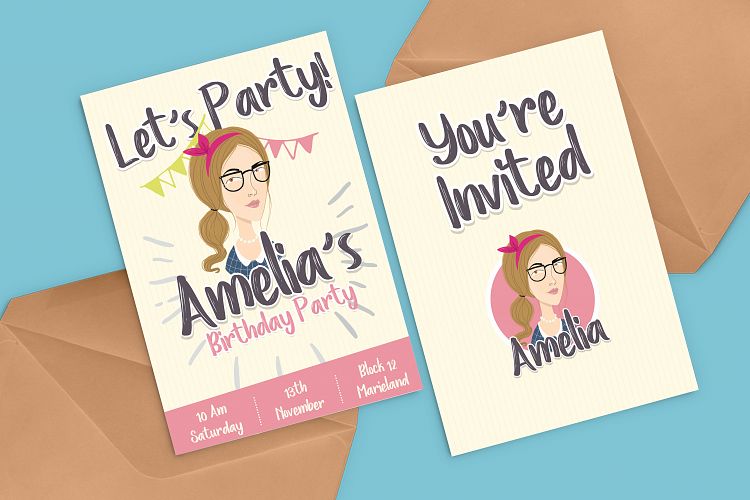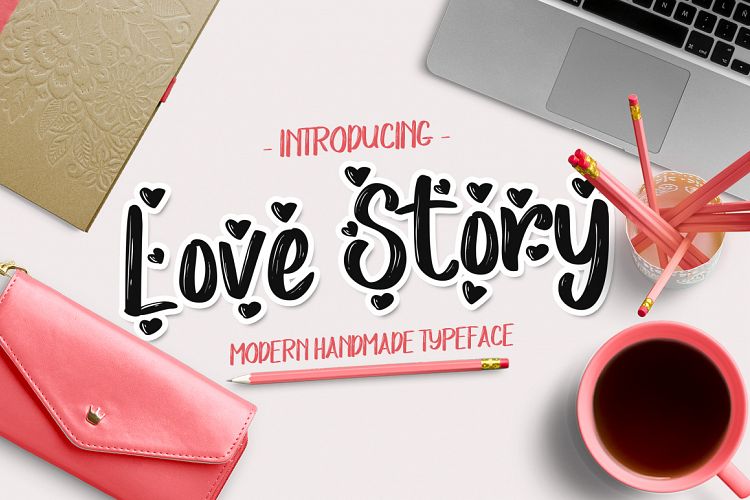
Love Story Brush
Love Story Brush Font
Introducing love story font
This font is handmade and Very suitable for those of you who like handcrafted, you can use it for various design purposes.
Very suitable for design purposes that prioritize the natural side of handwriting like, birthday invitation, book cover or music album, for the purposes of correspondence, brochures, business cards and many more.
Apart from its attractive font shape, this font also has some unique alternatives.
Each character has 4 alternative form of heart that appears at the top and bottom as well as the left and right side.
– Rough and clean version
– Alternative Stylistic Character